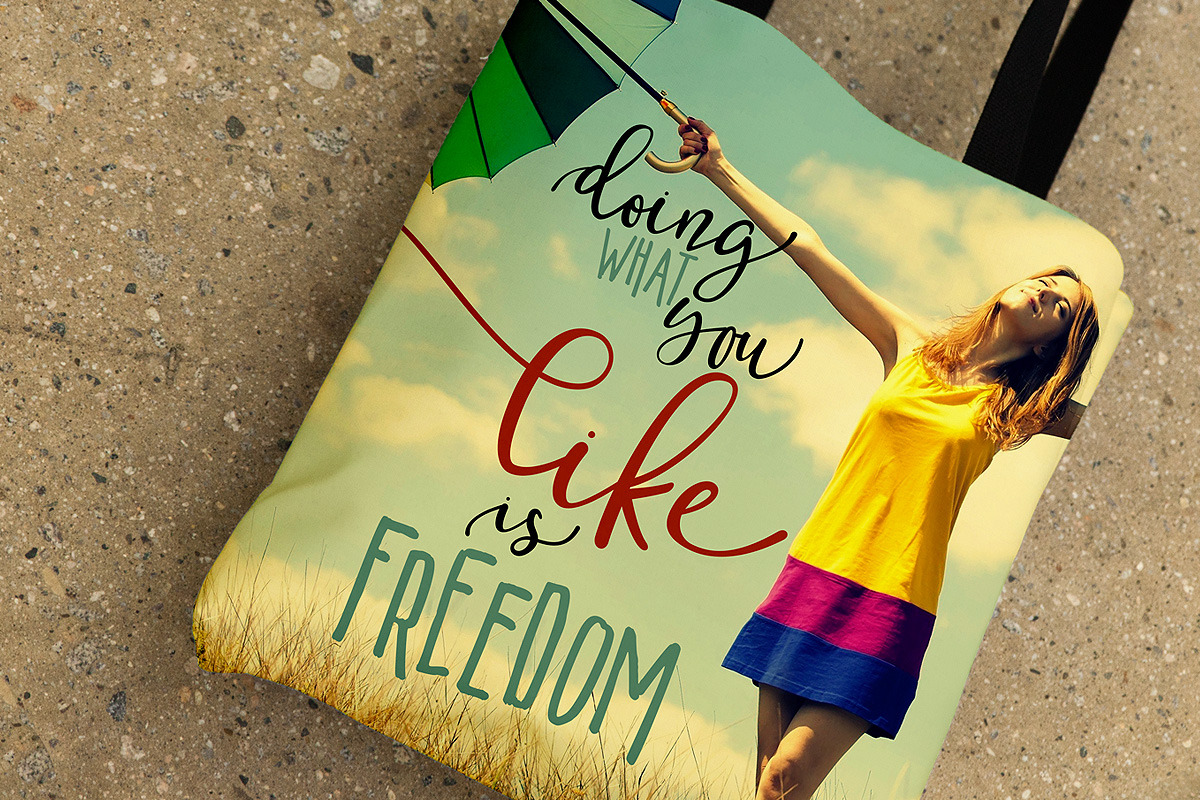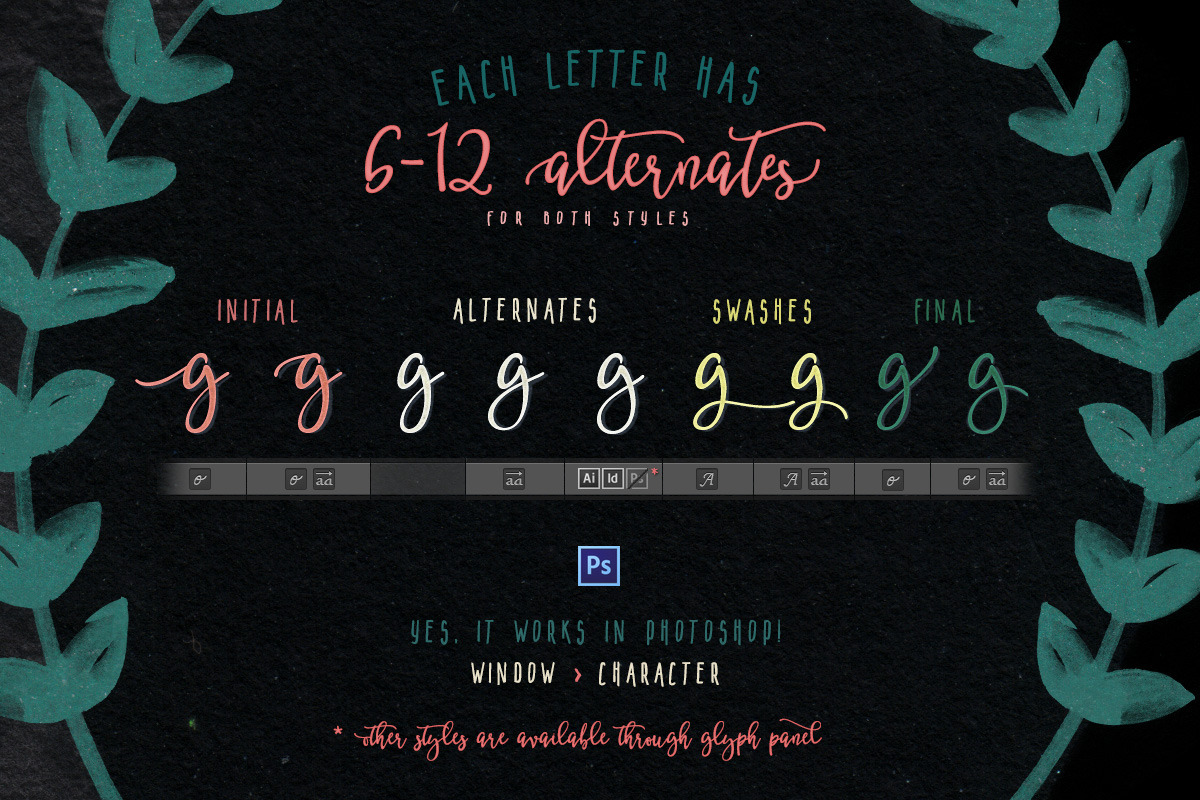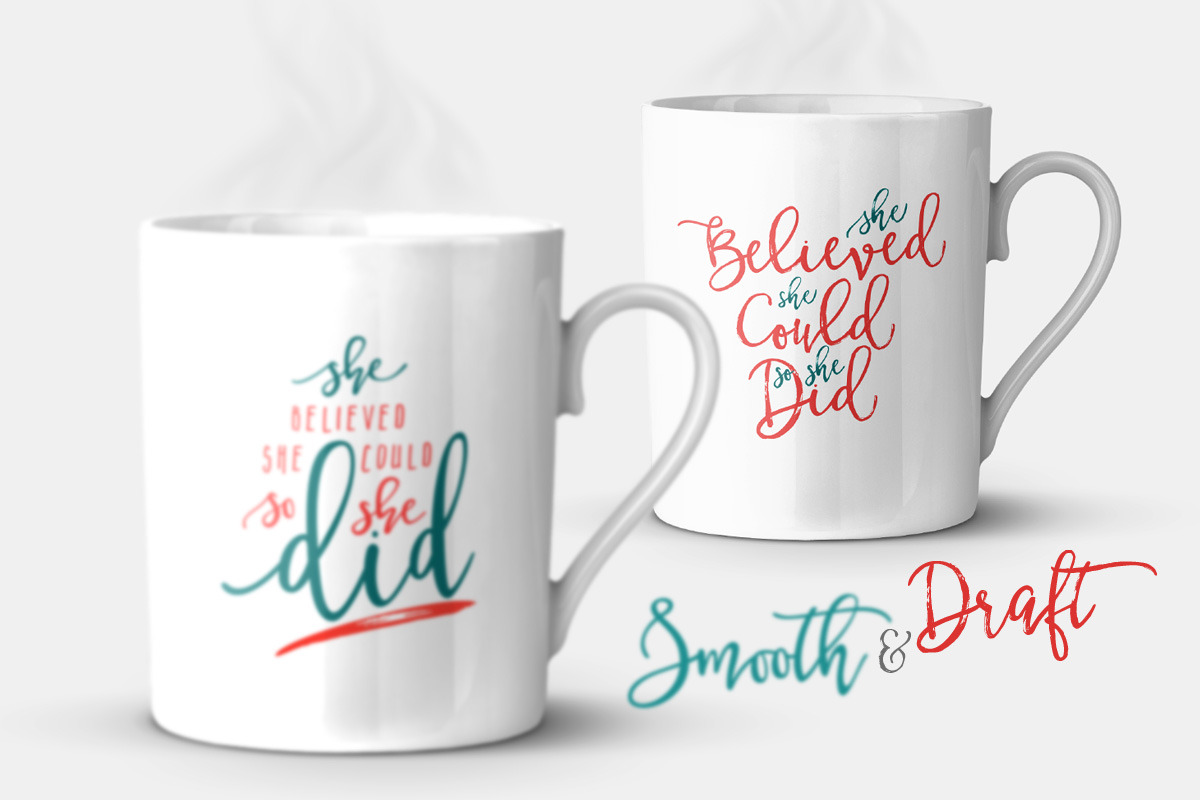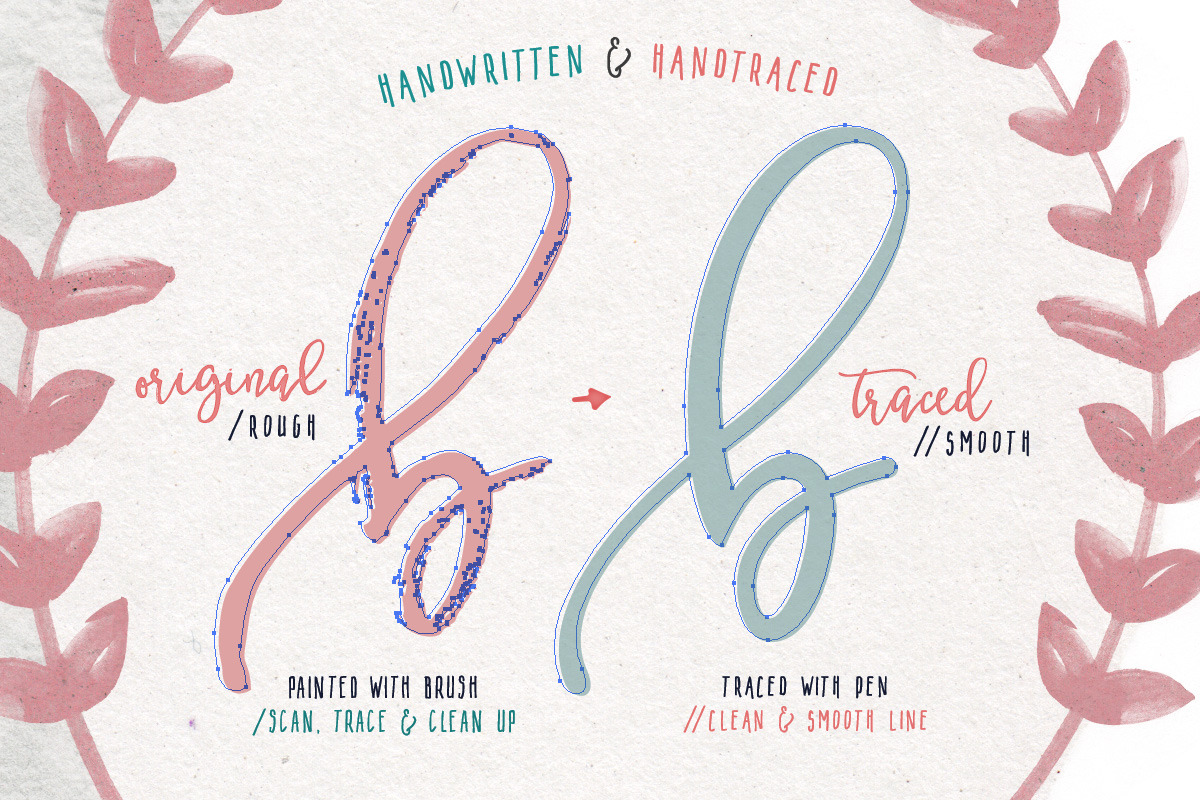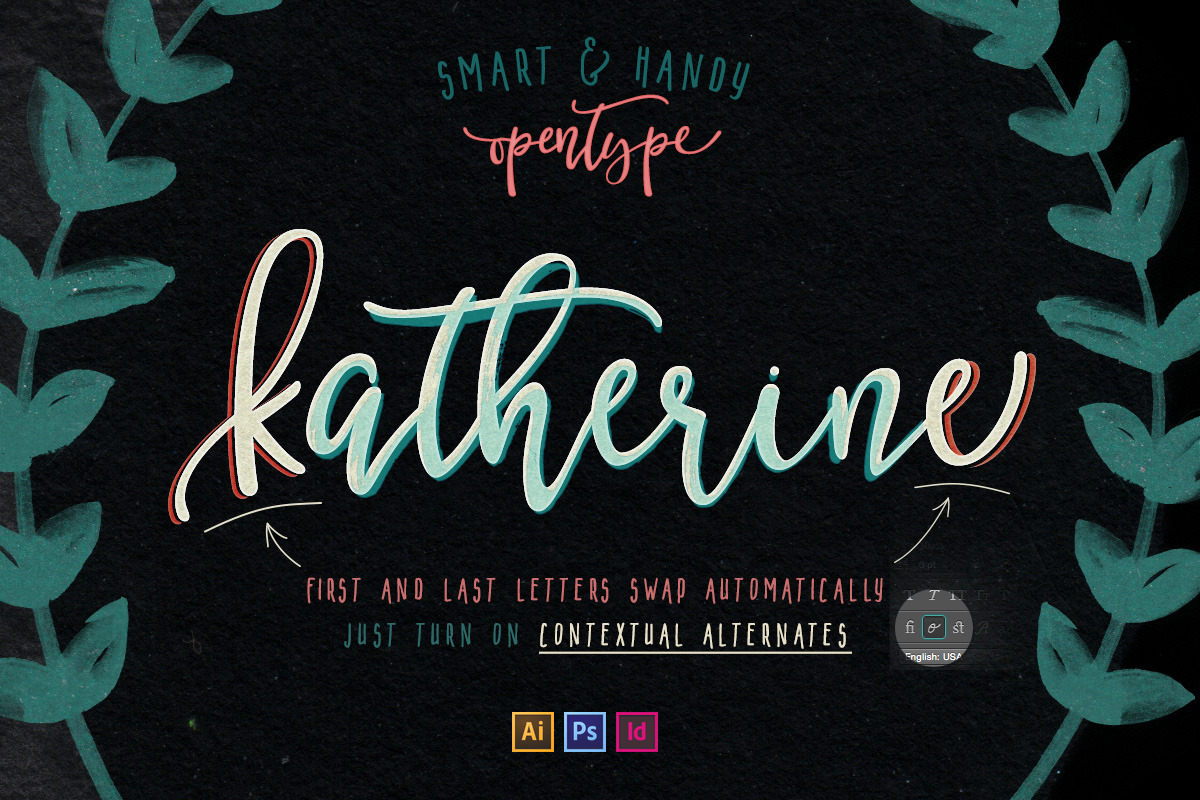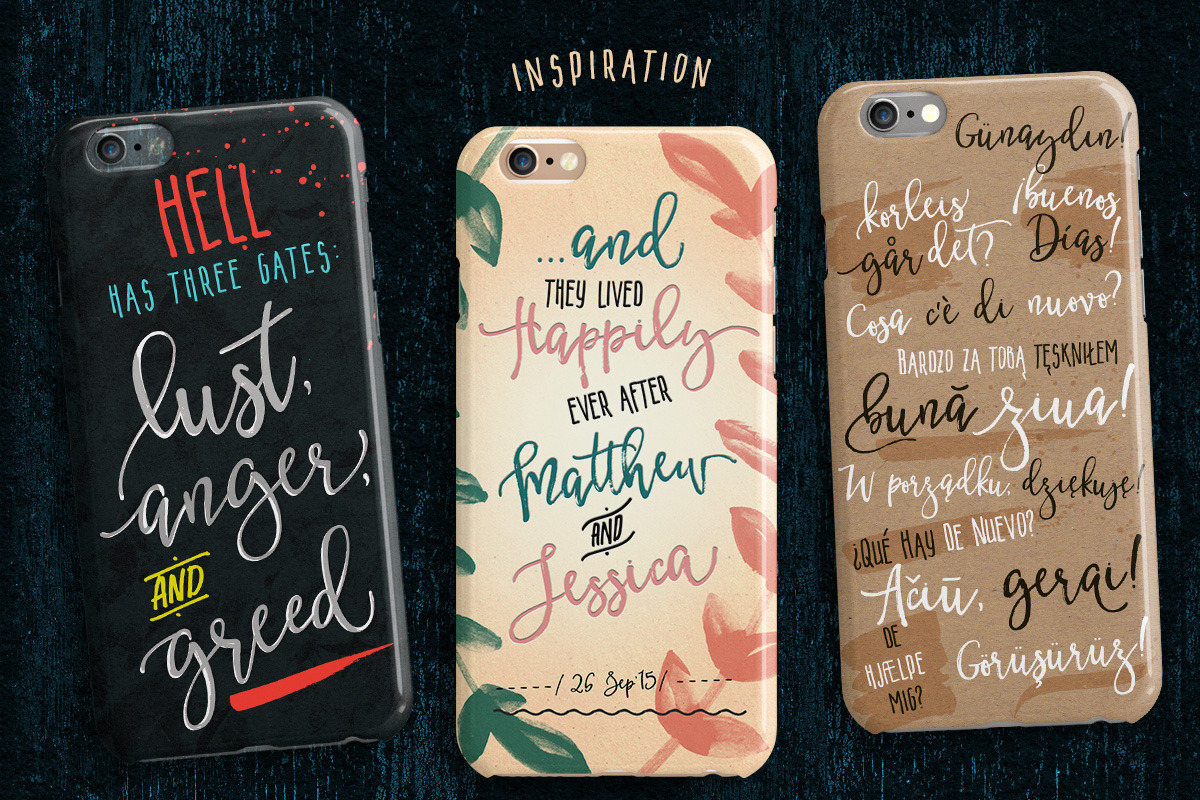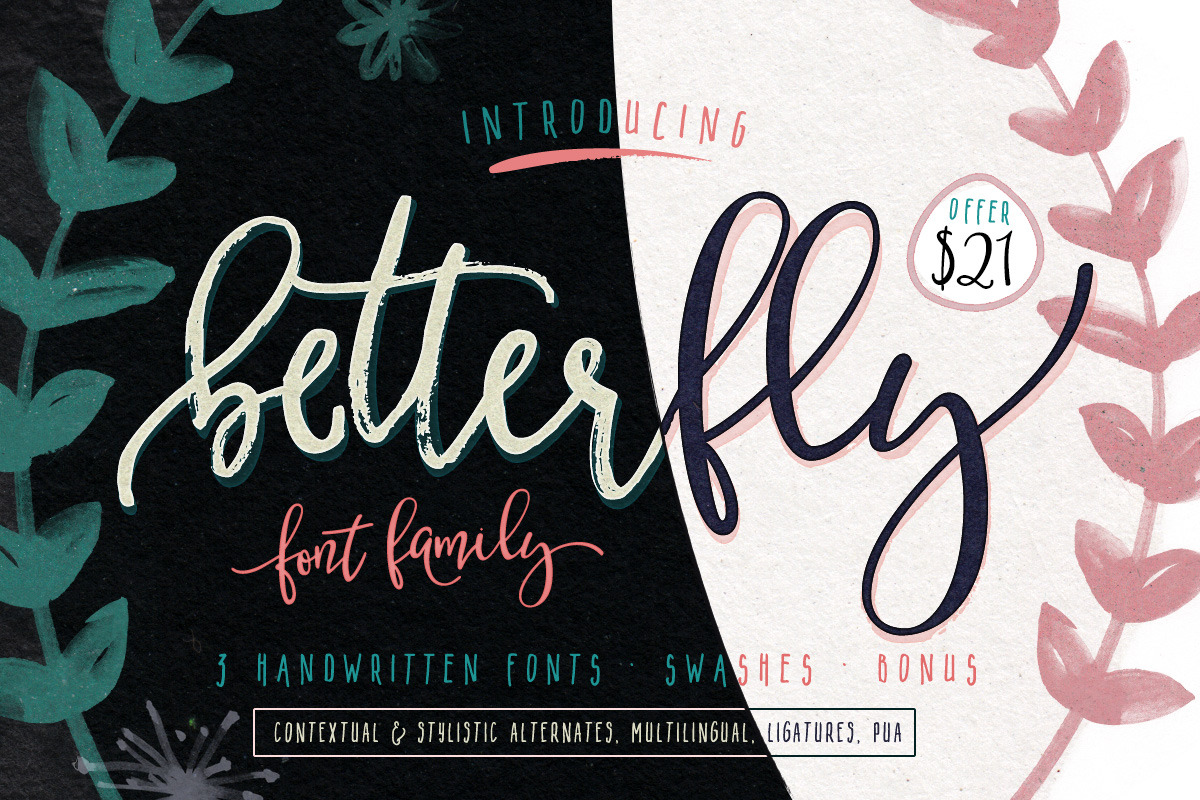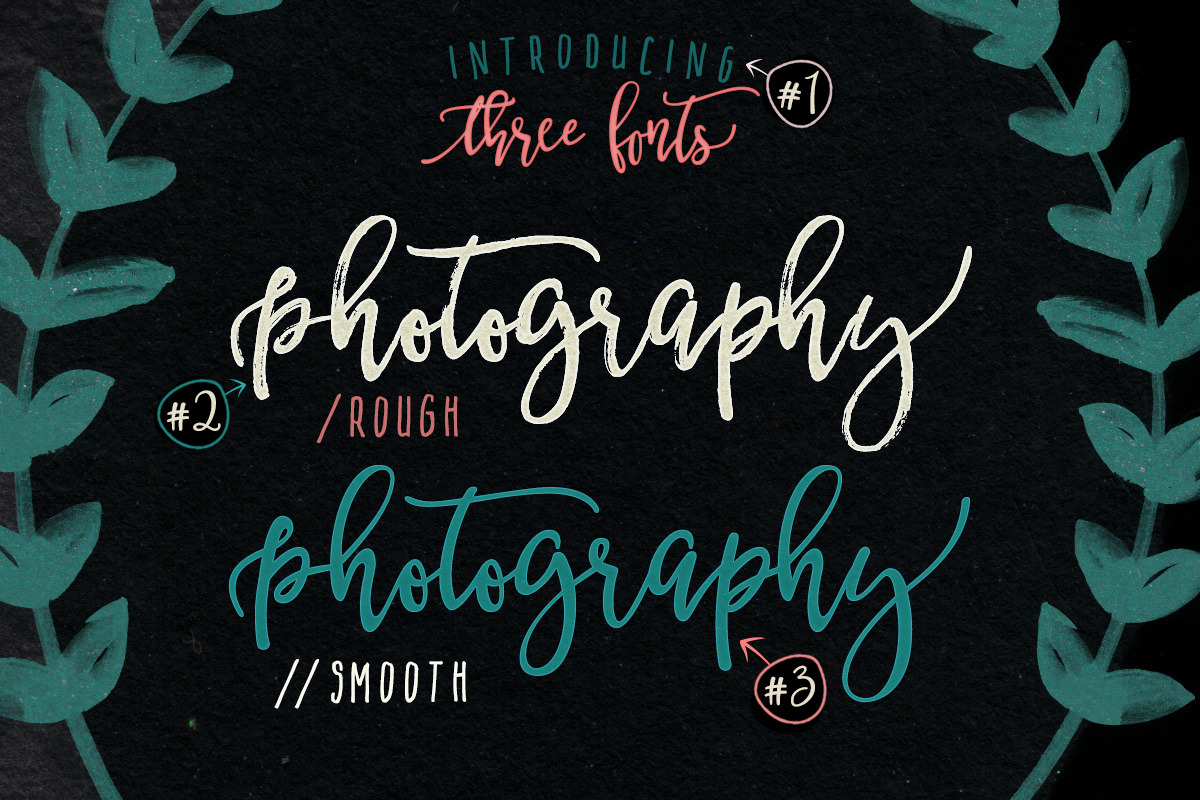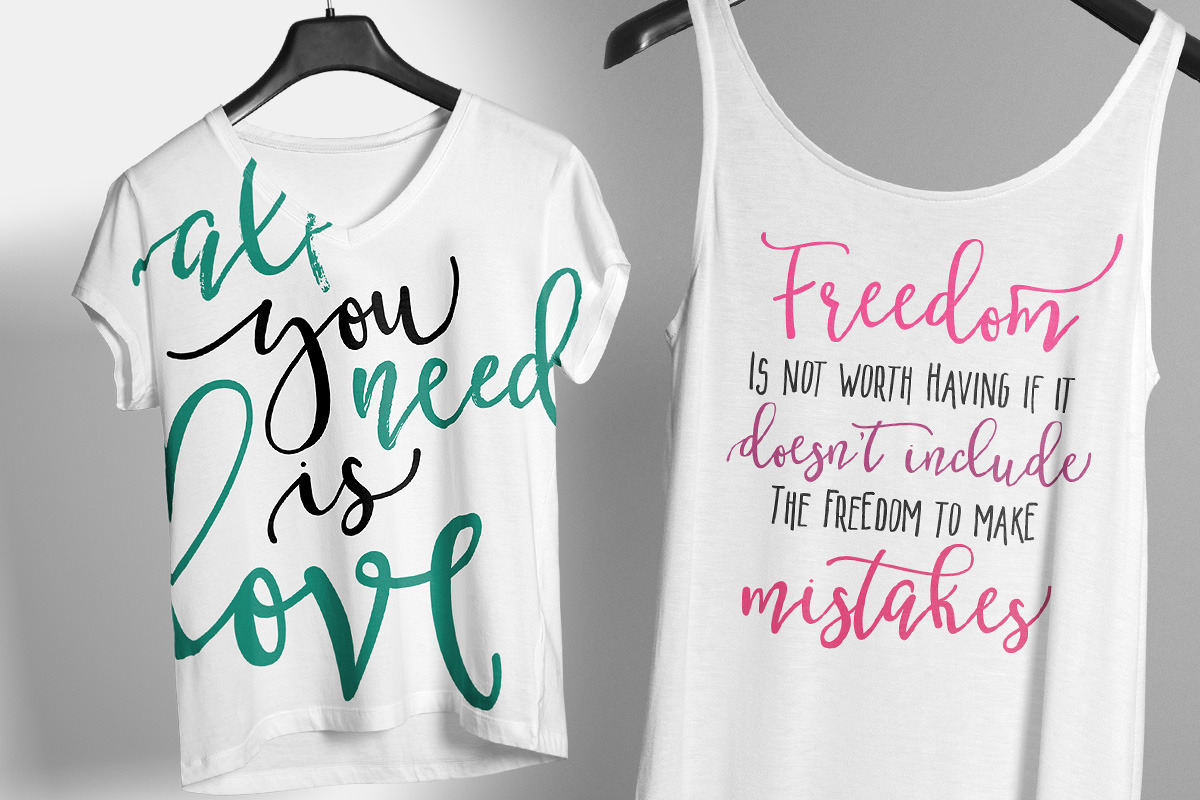
BetterFly - 3 modern fonts & swashes
BetterFly is handwritten modern script family with numerous alternates. It is opentype! It is smart and it is working in Photoshop*! You are welcome to use it for various purposes: logo, wedding invitation, headings, signatures, t-shirt, letterhead, signage, labels, posters etc.
BetterFly supports:
- Contextual alternates
- Discretionary Ligatures
- Stylistic alternate
- PUA (private use areas)
I prepared carefully 6-12 alternates for each single letter. Total glyphs 565, includes multilingual symbols (scroll 1st screen)
Photoshop users have access to 7 glyphs for each letter:
- Contextual alternates (changes first letter)
- Contextual alternates (changes last letter)
- Contextual alternates + Stylistic alternates (other styles for first letter)
- Contextual alternates + Stylistic alternates (other styles for last letter)
- Stylistic alternate
- Swash + stylistic alternate
- BetterFly-Draft
- BetterFly-Smooth
- BetterFly-Narrow
- BetterFly-Swashes
This handwritten font is perfect for:
- logos
- prints
- quotes
- stationary
- decoration
- wedding invitations
- BetterFly draft is handwritten font which has been scanned to save all imperfection, after that cleaned for unused points.
- BetterFly Neat is a clone of draft with same kerning, positions, etc. The only difference is that it is super clean and has minimum of points.